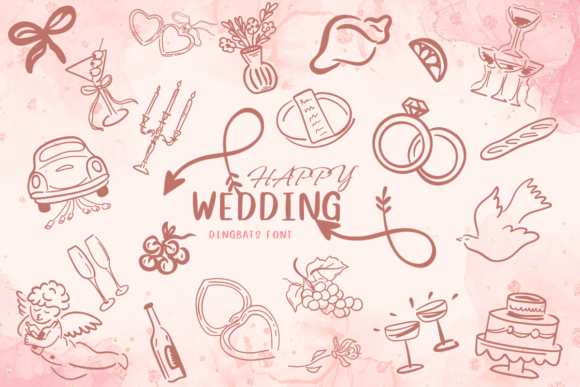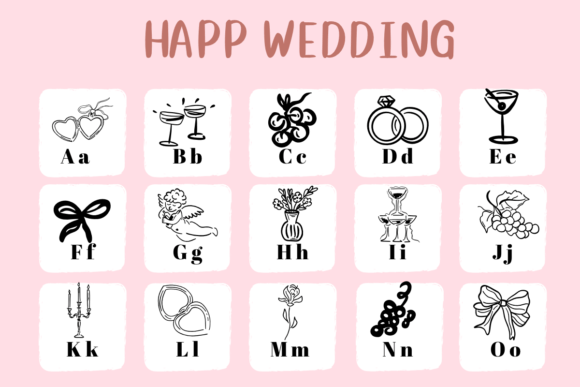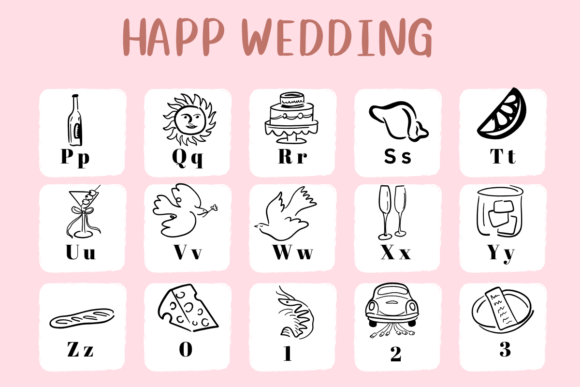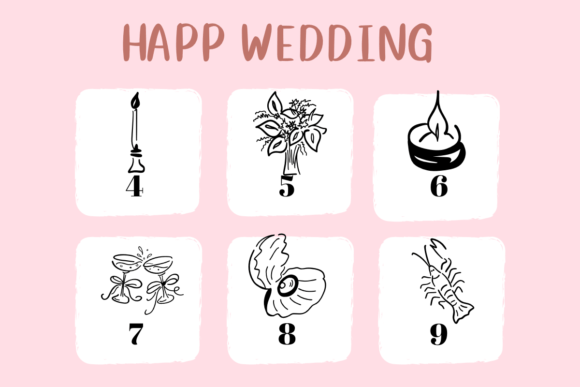
Happy Wedding Font
About the Happy Wedding Font
From logos to headlines, the Happy Wedding Font is the perfect choice for making a lasting impression. Happy Wedding is a lovely dingbat font with a special theme. This font can enhance your creative projects such as wedding invitations, DIY, crafts, decorations, logos, and many other creative ideas.
Happy Wedding’s playful, celebratory style makes it ideal for wedding stationery, branding for event planners or bakeries, and short, impactful headlines. It excels in projects requiring a lighthearted and charming aesthetic. However, its decorative nature makes it unsuitable for body text or UI elements where readability is paramount. Avoid using it in long paragraphs or for extensive text.
Pairing Happy Wedding with a clean sans-serif like Open Sans for body copy creates a balanced design. For a more elegant touch, consider pairing it with a classic serif font such as Garamond. These pairings allow Happy Wedding to shine as a decorative accent without overwhelming the overall design.
Its core personality is undeniably cheerful and romantic, perfect for brands conveying joy and celebration. Avoid using it for projects requiring a serious or sophisticated tone.
Happy Wedding Font Usage Examples
Happy Wedding Font Example